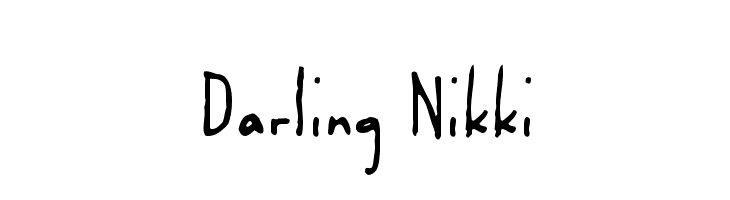
Chaque police phare se distingue par équilibre, lisibilité et polyvalence. Vous trouverez des sans‑serifs modernes, des scripts élégantes, des serifs vintage et des displays minimalistes.
A playful, bold font with rounded edges and a modern, friendly style.
A chaotic, edgy font with jagged, hand-drawn strokes.
A bold, condensed, and decorative font with high contrast and tight spacing.
A bold, italic, and condensed font with a modern, dynamic style.
A playful, casual handwritten font with uneven strokes and a lively feel.
A bold, flowing script font with smooth, rounded edges and consistent stroke width.
A bold, brush-style font with dynamic and expressive strokes.
A bold, italic sans-serif font with a modern and dynamic style.
A bold, distressed font with a grunge texture and playful lowercase letters.
A futuristic, geometric font with bold, angular characters and a modern aesthetic.
A playful, hand-drawn font with whimsical, doodle-like characters.
A bold, modern sans-serif font with excellent readability and balanced proportions.
A playful, hollow, hand-drawn font with bold outlines and artistic flair.
A bold, distressed font with a vintage, gritty texture.
A modern, geometric sans-serif font with clean lines and balanced proportions.
A bold, geometric font with a strong, block-like design.
A playful, curly font with bold, rounded characters full of whimsy and movement.
A bold, futuristic font with angular, geometric shapes and a dynamic slant.
A playful, handwritten font with a whimsical and friendly style.
A modern serif font with a light weight and elegant style.
A bold, vintage serif font with rounded serifs and a slightly condensed style.
A bold, playful font with a whimsical, hand-drawn style.